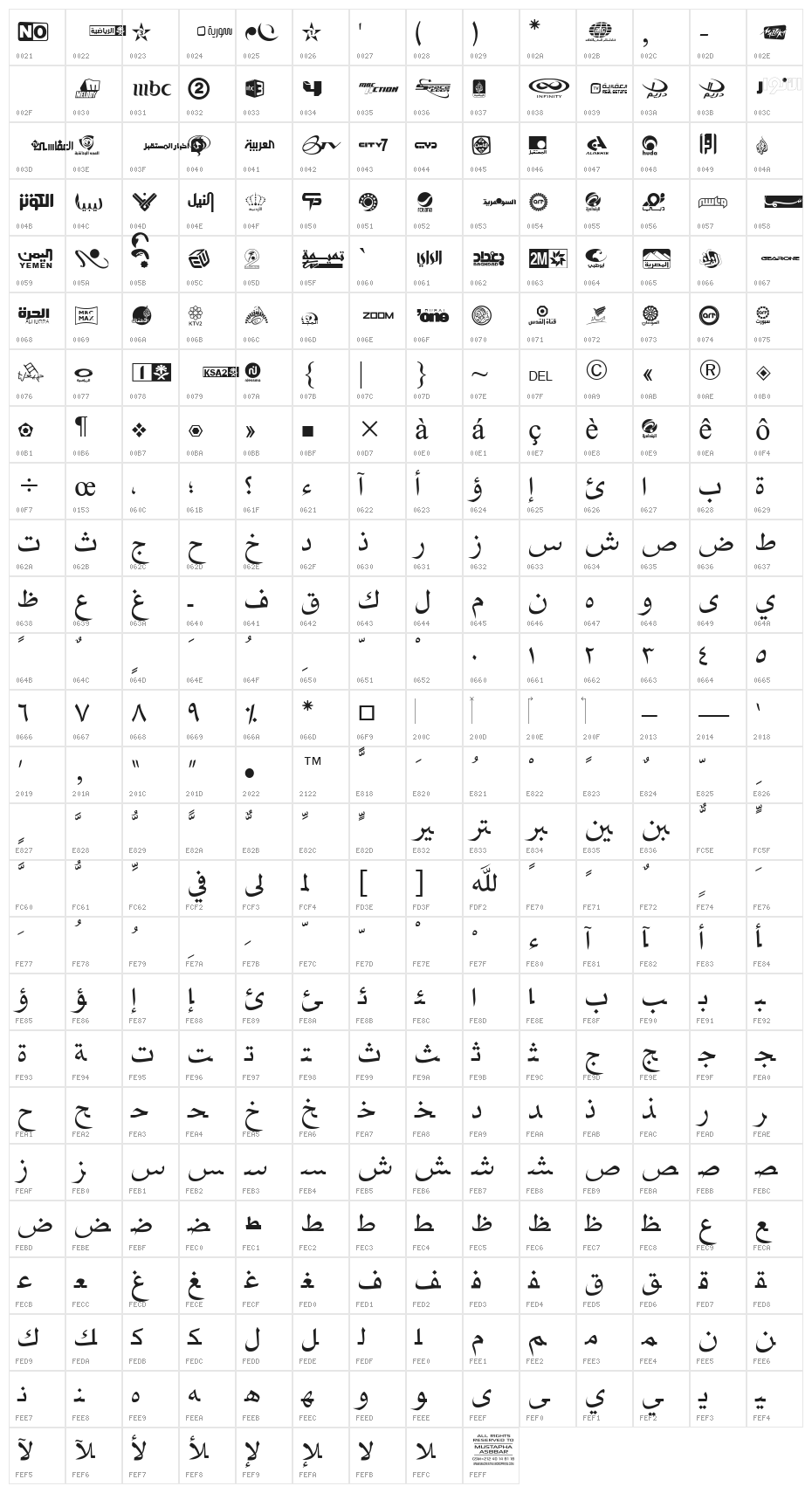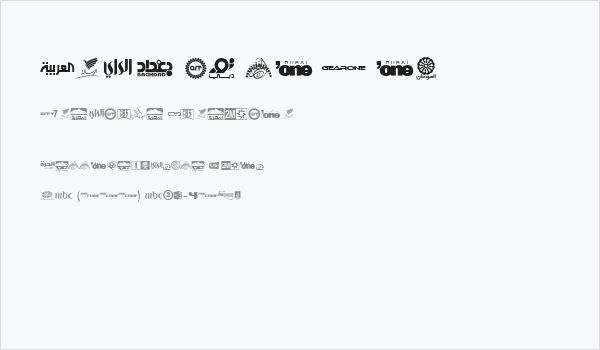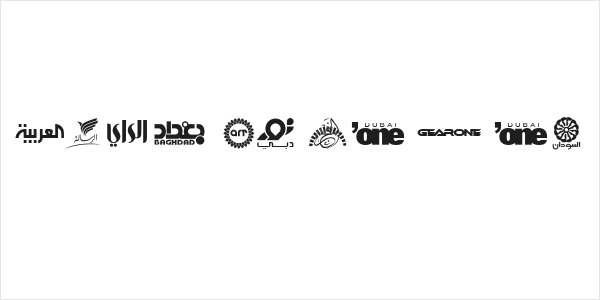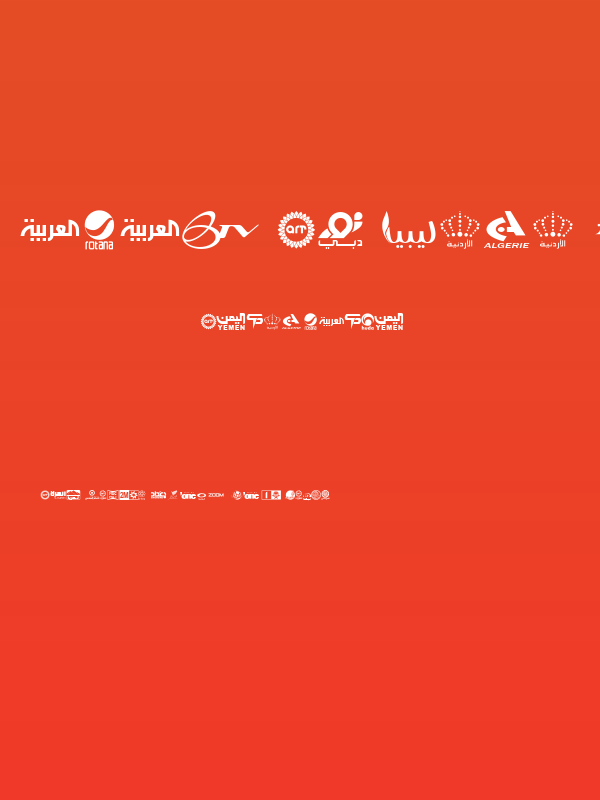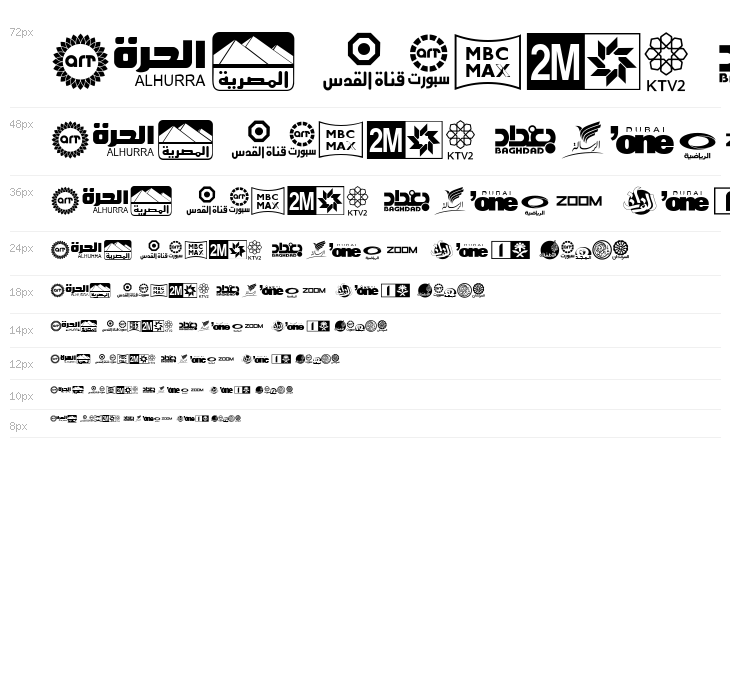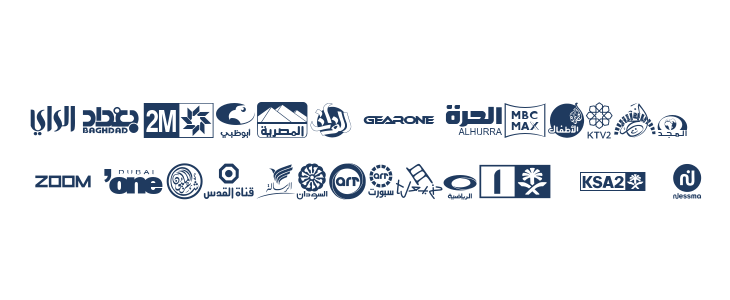
Arab TV logos Font
Arab TV logos Description
This image contains a collection of various Arabic and English TV channel logos, each using distinct custom logotypes and graphic elements. The styles range from geometric sans-serif to decorative and calligraphic Arabic scripts, with a mix of bold, regular, and stylized weights. Many logos incorporate unique iconography and branding elements, making them highly individualized rather than representing a single cohesive font.
| Overall Style | Modern, Decorative, Corporate, Calligraphic |
| Use Case | Logos, Branding, Channel Identities |
| Proposed Projects | Branding, logo design, TV channel identities, media graphics. |